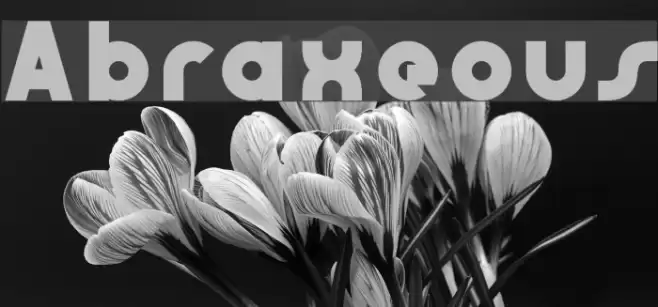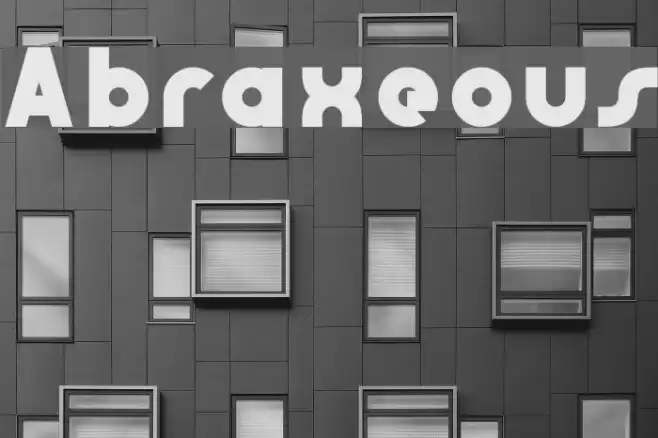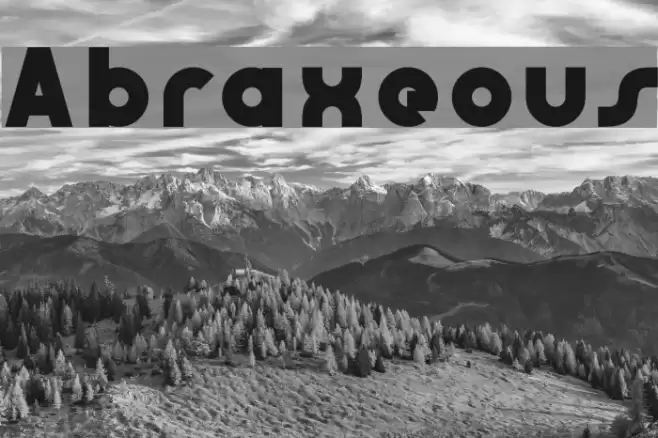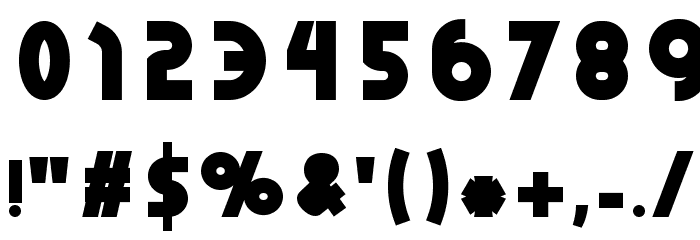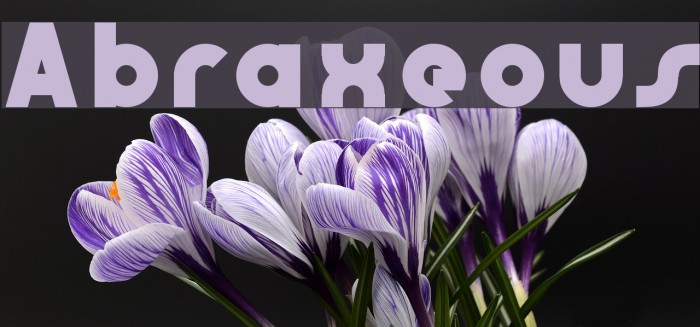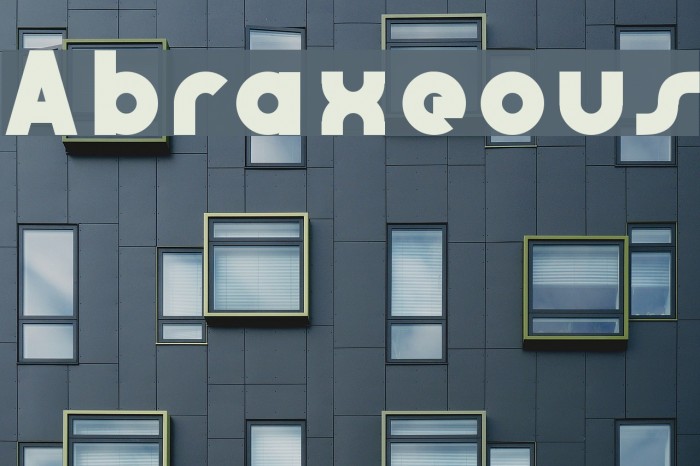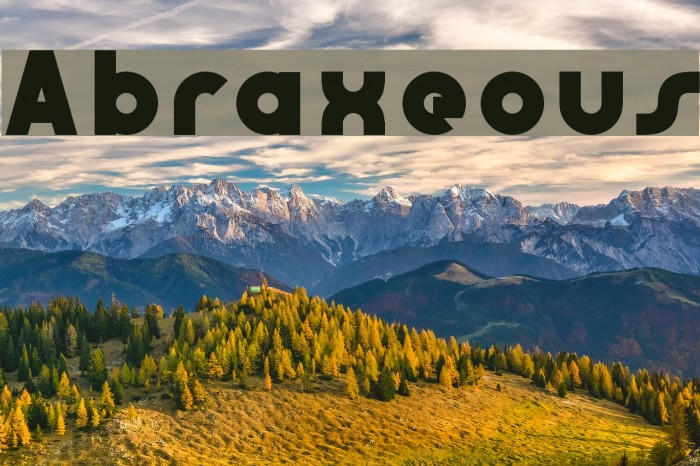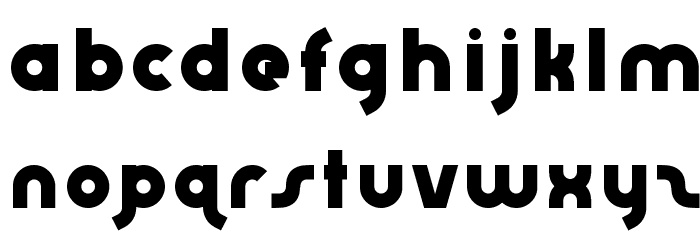
Abraxeous Font
Abraxeous Description
This font features bold, geometric shapes with a strong presence, characterized by its thick strokes and angular design. The uppercase letters exhibit a uniform height with a slight variation in width, creating a dynamic and modern appearance. The lowercase letters maintain the boldness of the uppercase, with rounded edges that soften the overall look. Numbers are consistent with the font's bold style, ensuring readability and impact. Special characters are designed to match the font's geometric and bold aesthetic, making them stand out while remaining cohesive with the rest of the character set.
A bold, geometric font with strong, angular shapes and a modern aesthetic from Uncategorized fonts.
- Proposed Projects: Ideal for branding, headlines, posters, and any project requiring a strong visual impact.